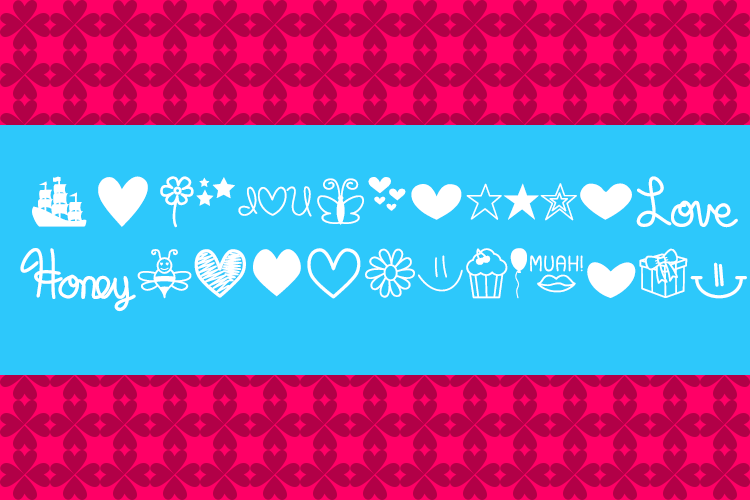
Preview and download MF Dings Font. Created by Misti's Fonts in Dingbats Various styles with Free for personal use license.
Font name: | MF Dings |
This ding set includes all the special characters from my previous fonts (Ships In The Night, Fight For My Love, My Font Addiction, Honeybee, and Happy Birthday, Baby). My fonts are free for PERSONAL use only. For any commercial use (anything you money from), you must send a paypal donation. Please visit my website www.mistifonts.com to see my affordable prices. Like Misti's Fonts on facebook: https://www.facebook.com/pages/Mistis-Fonts/1383124481904444# Subscribe to Misti's Fonts on youtube: https://www.youtube.com/user/mistifonts |